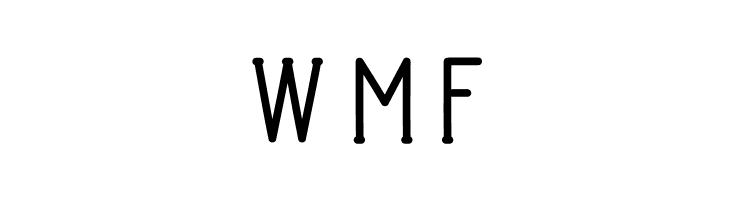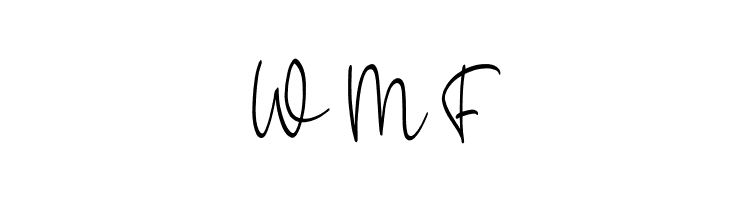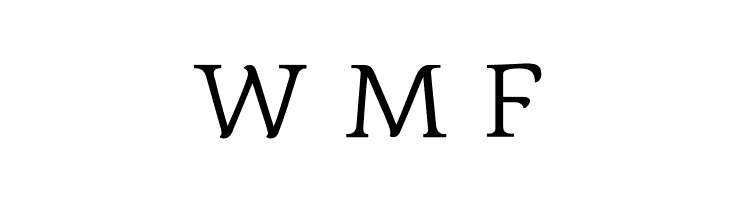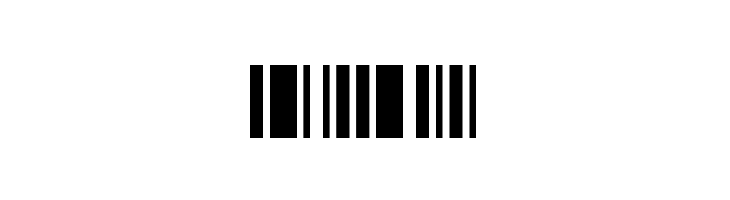
A bold, artistic font with a hand-drawn, whimsical style.
A whimsical, hand-drawn font with playful curves and artistic flair.
An elegant, flowing script font with graceful curves and a sophisticated style.
A cursive, handwritten-style font with elegant, flowing letters.
A classic serif font with elegant curves and refined structure.
A barcode-inspired font with vertical lines creating a modern, futuristic look.
A modern, rounded font with a playful and approachable style.
A casual, handwritten cursive font with smooth, flowing strokes.
A dynamic, handwritten font with fluid strokes and a modern, artistic vibe.
A playful and elegant script font with a handwritten style.